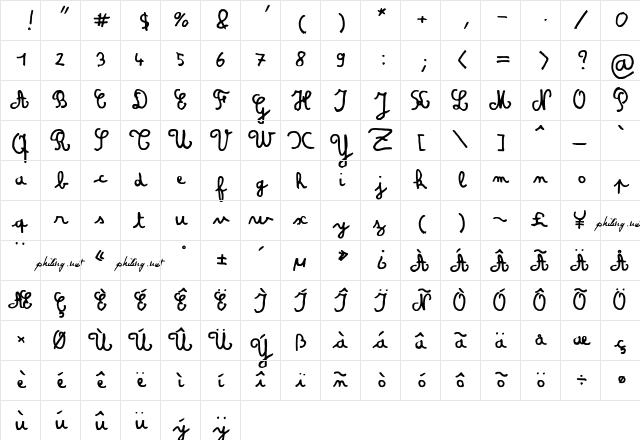
Amandine handwriting
Style: handwriting
Design Context for Amandine
Amandine flows with the natural rhythm of handwritten lettering, making it ideal for designs that call for warmth and personal expression.
Font Pairing: Combine Amandine with a simple geometric sans for maximum contrast - the tension between flowing curves and clean structure is a classic typographic pairing.
Pro Tip: Use Amandine for short runs of text - names, titles, or taglines. Extended body copy in script faces tires the eye quickly.